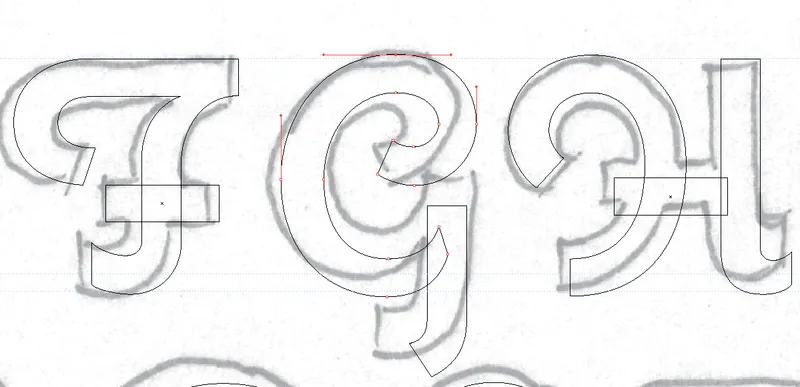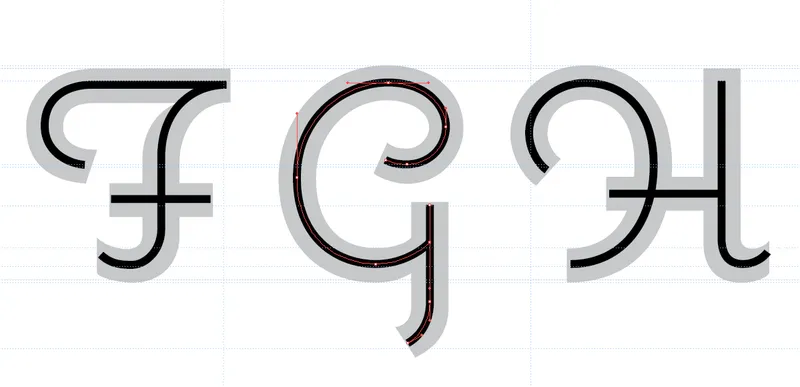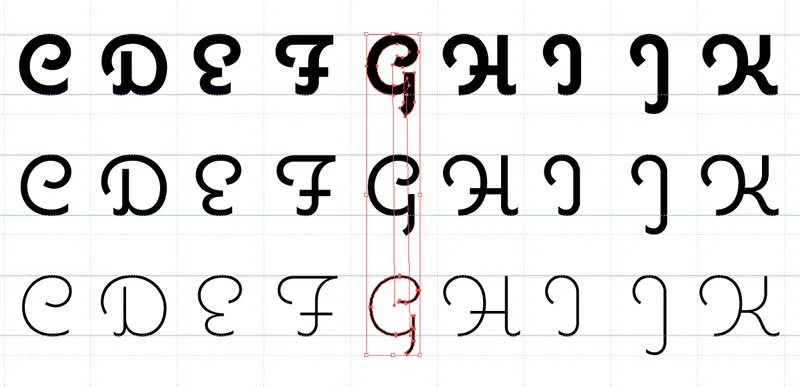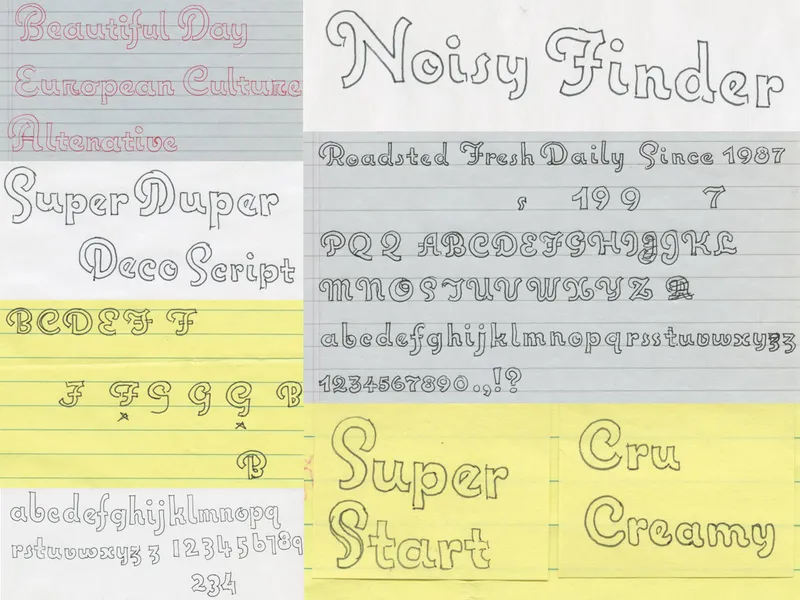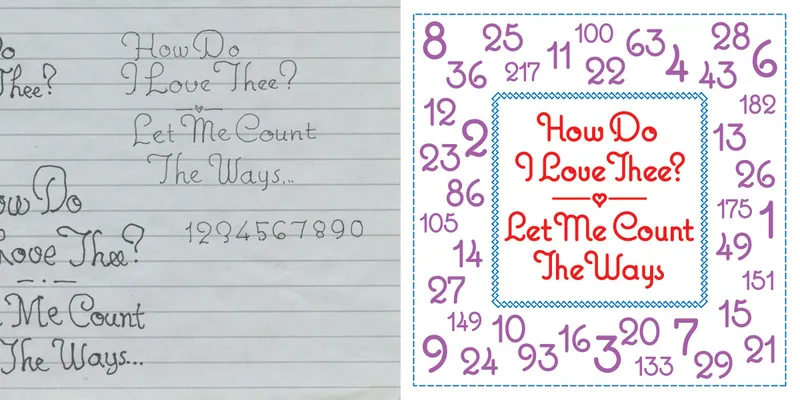
Rejected Signals logo design, precursor to Coquette.
One of the unused logos I did was in a script style, a sort of mid-century European look, like a logo you might see on a vintage camera or radio. The old Rolleiflex logo and similar things were probably in the back of my mind. It was a bit like a cross between Typo Upright and Kabel. Something about it caught my imagination, and I started making sketches of it in idle moments.
Pillow design featuring another Coquette precursor.
Around this time, I was asked to design a product—a pillow displaying the words “How Do I Love Thee? Let Me Count the Ways” (I know, very corny). The script idea was still on my mind and I decided to use it. I did only the characters you can see here. It wasn’t really a font yet. Sadly, the pillow was never produced.
Early sketches for Deco Script.
I continued to be preoccupied with the idea. Pretty quickly I had the basic design worked out. But I had other commitments: I was trying to finish my earliest font releases for Font Haus, Proxima Sans and Kandal. Plus, my daughter Ruby was born that fall. With a full-time job and all these other things going on in my life, Deco Script, as I called it at the time, got put on the shelf.
Ruby Script, a failed attempt.
In 1995, I made an attempt to turn it into a font. I decided to call it Ruby Script, after my daughter, since they were both born around the same time. Working in Adobe illustrator, I built it from simple geometric shapes. But I made it too stiff and mechanical and failed to capture the spirit of the design. Frustrated, I set it aside.
Coquette-like lettering from the launch of my website.
I left Rivertown in 2000 to start my own design business, Mark Simonson Studio, and put up a website. You can see further development of the idea in the lettering for the “Font Sales” icon I designed for the site (above). I wanted to start making fonts again. I hadn’t released anything since 1994. After finishing and releasing some fonts I’d been working on during the ’90s—Refrigerator, Sharktooth, Blakely, and Felt Tip Senior—I knew I had to get going again on Ruby Script.
Working drawing for Coquette Bold.
In March 2001, I decided to start fresh and try a different approach. By this time, I knew exactly how I wanted it to look. I started sketching the boldest weight on velum in pencil. Part of my strategy was to make the drawings fairly small—about a half inch tall, close to a size they might be used. I’d found that working too big can lead to letter designs that don’t work as well when they are set smaller. I also didn’t attempt to make the drawings super precise. The idea was to get the general idea down, with the right look and proportions. They were more like notes to myself than working drawings.
Coquette Bold tracing in Adobe Illustrator.
The next step was to scan the sketch and bring it into Illustrator. This was were the real drawing happened. I used the sketch as a reminder of what I was thinking, not something to be traced blindly. The sketches were fairly small, preventing the kind of distortions that can happen when working so large on a computer monitor. I was also careful not to rely too much on the circle tool, the mistake I’d made in my earlier failed attempt. And I tried not to be too rigid with measuring every little thing, trusting my eye instead. I was surprised at how well this worked, and I’ve worked this way ever since.
Coquette Light drawing in Adobe Illustrator.
Once I finished drawing the bold weight, I moved on to the light weight. For this weight, I used a different method. There was no pencil sketch. Using the bold weight as a template, I drew a simple line through the middle of each stroke. Once I had that, I expanded the line to an outlined shape and cleaned it up, fixing all the little optical issues and stroke endings, and adjusting the height of the characters to match the bold weight.
Interpolating Coquette Regular in Illustrator.
For the regular weight, no drawings were necessary. Instead, I used the blend tool in Illustrator to create drawings that were exactly halfway between the two existing weights. In all, it took about two weeks to do the drawings. After the basic character set was finished in Illustrator, I moved everything into Fontographer to do the spacing and kerning, and generated the finished fonts in early June. (Note: I wouldn’t recommend designing fonts in Illustrator. It creates a lot of extra work. I didn’t know that back then. Now I do my drawing in a proper font editor, a much better way to work if you’re serious about making fonts.)
Proposed names for Coquette.
Just as I was about to release it, I discovered that the name I had selected, Ruby Script, was also the name of an up-and-coming scripting language from Japan. This would be problematic in the age of search engines. So I had to come up with a something different.
The design loosely follows the French script model, so I started looking through my old French/English dictionary from high school. Of all the names I came up with, Coquette was the clear winner. As typefaces go, it does look kind of flirtatious, doesn’t it?
Coquette banner.